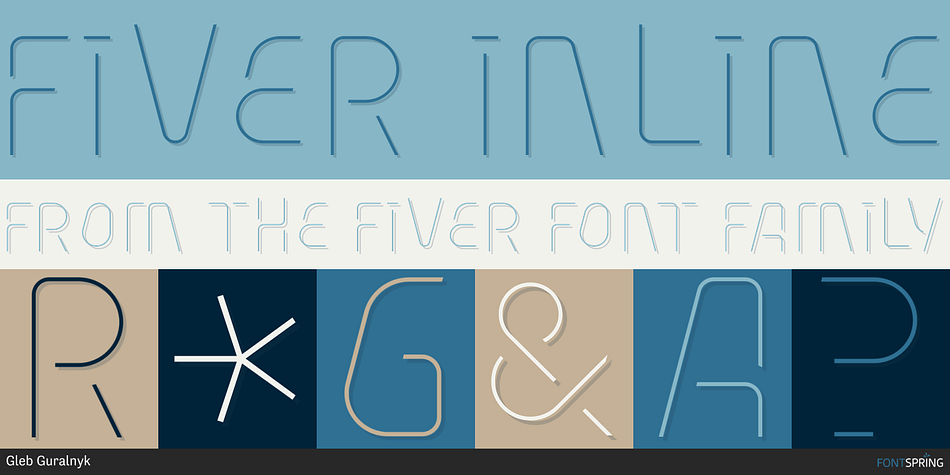
FIVER INLINE
Designed by Gleb Guralnyk, Fiver is a display sans font family. This typeface has five styles and was published by Gleb Guralnyk.
Hi, presenting a modern decorative font set named “Fiver”. It consists of five fonts with different lines variations. Gradient color effect with five lines font version is available in vector EPS format. Also two posters with lettering quotes are included in vector EPS.
Foundry Gleb Guralnyk
Designer Gleb Guralnyk